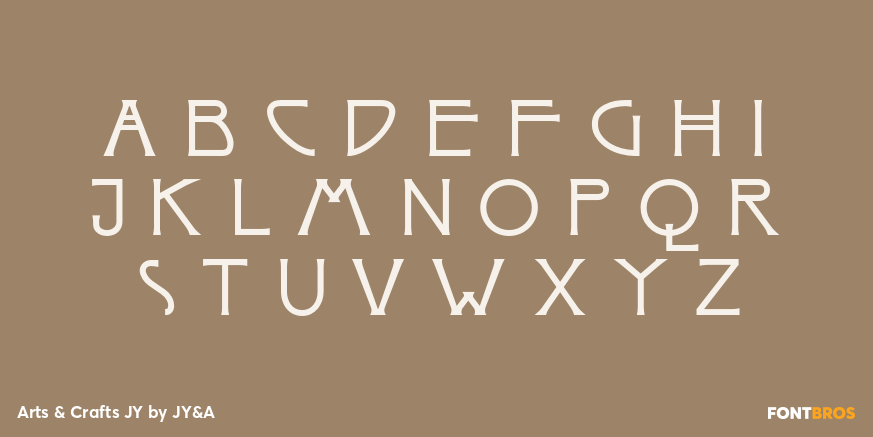
Arts & Crafts JY
Font Family by JY&A
With its strong shapes and distinctive personality, this single-style design is well suited to posters, logos, packaging, signage, and other headline work that benefits from a graphic, era-evoking touch. It also fits projects that lean into Art Deco, retro, or special-effect styling.
Created by JY&A, the family includes 1 font style. If you want a typeface that brings decorative detail and a unique period flavor to the page, this one offers a clear, characterful option.